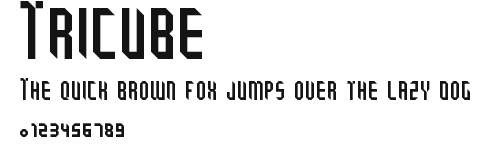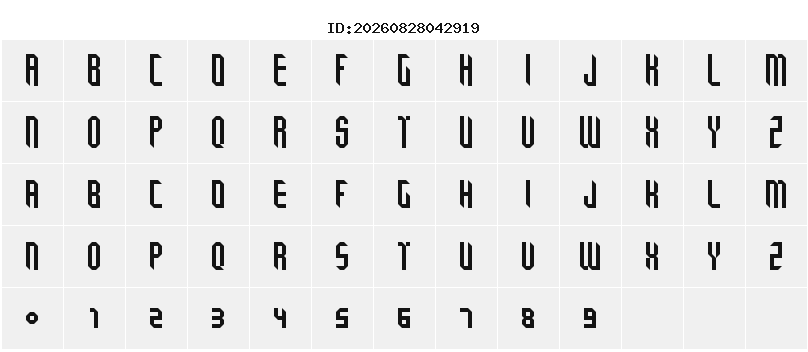
• Font Name: Tricube
• Full Font Name: Tricube Regular
• Designer: houssamchhih
• Description: ‚ÄúTricube‚Äù was built with FontStruct
About Tricube.ttf
Tricube.ttf is a modern, elegant sans-serif font designed for ultimate readability and visual harmony. Perfect for branding, headlines, web design, and print materials.